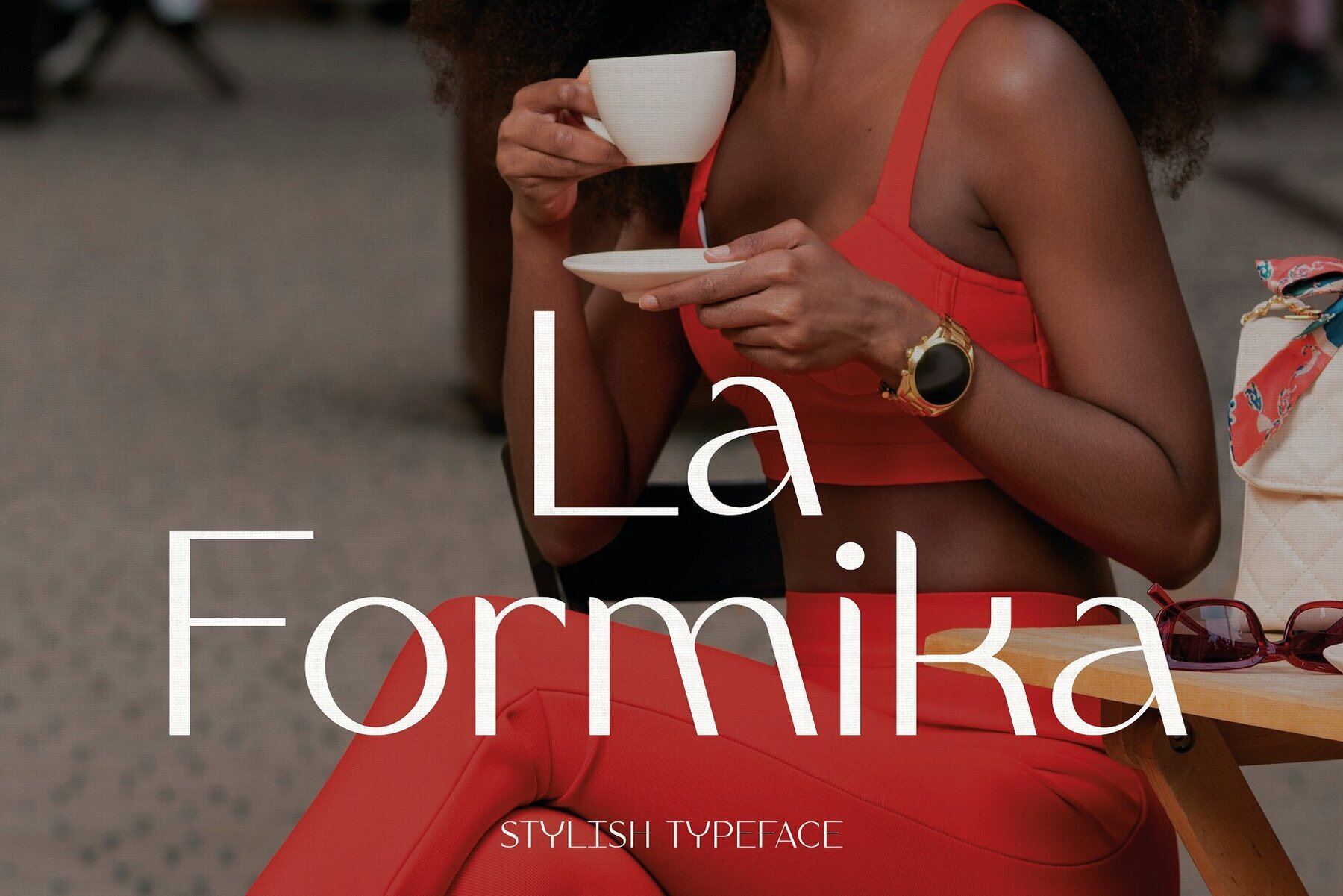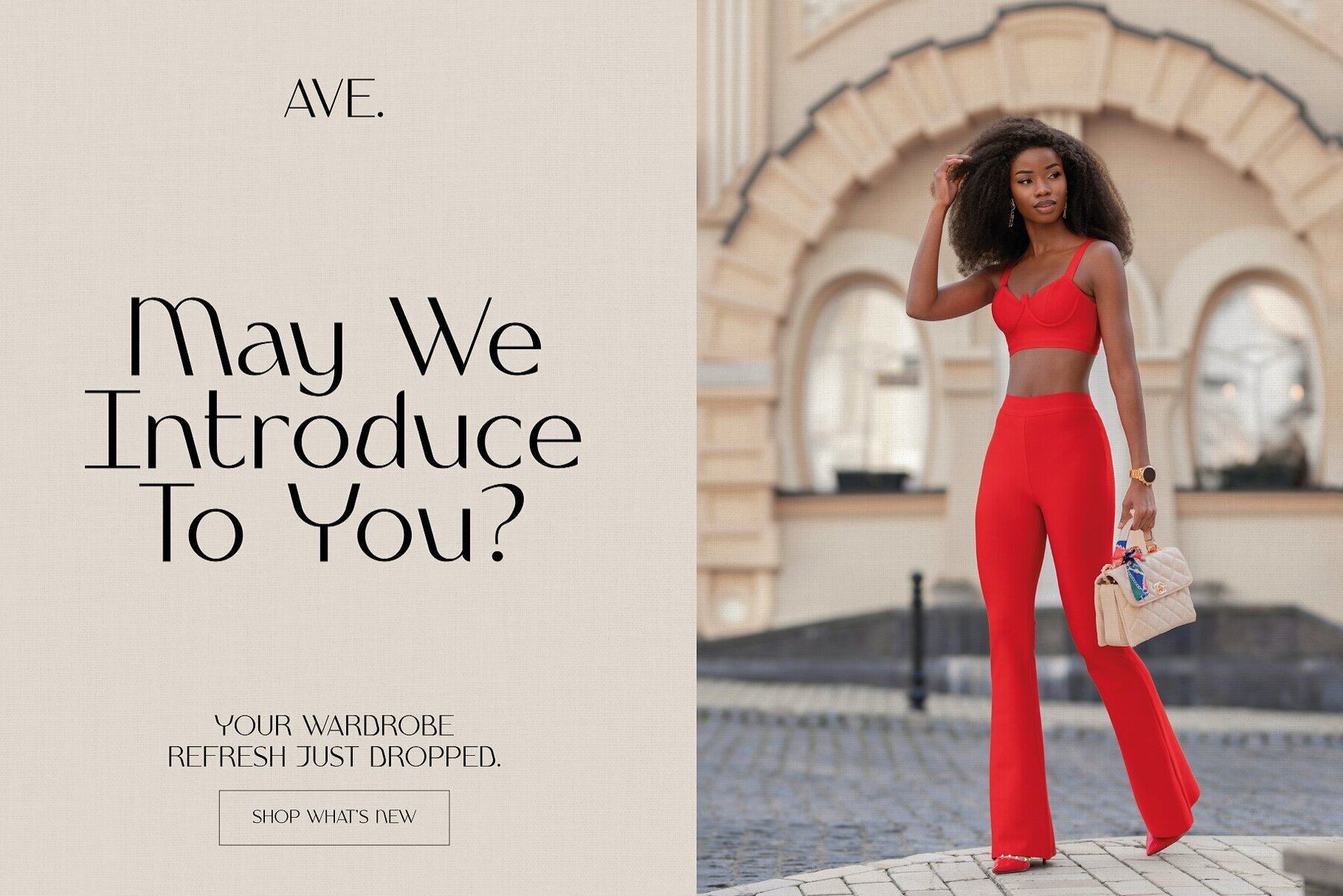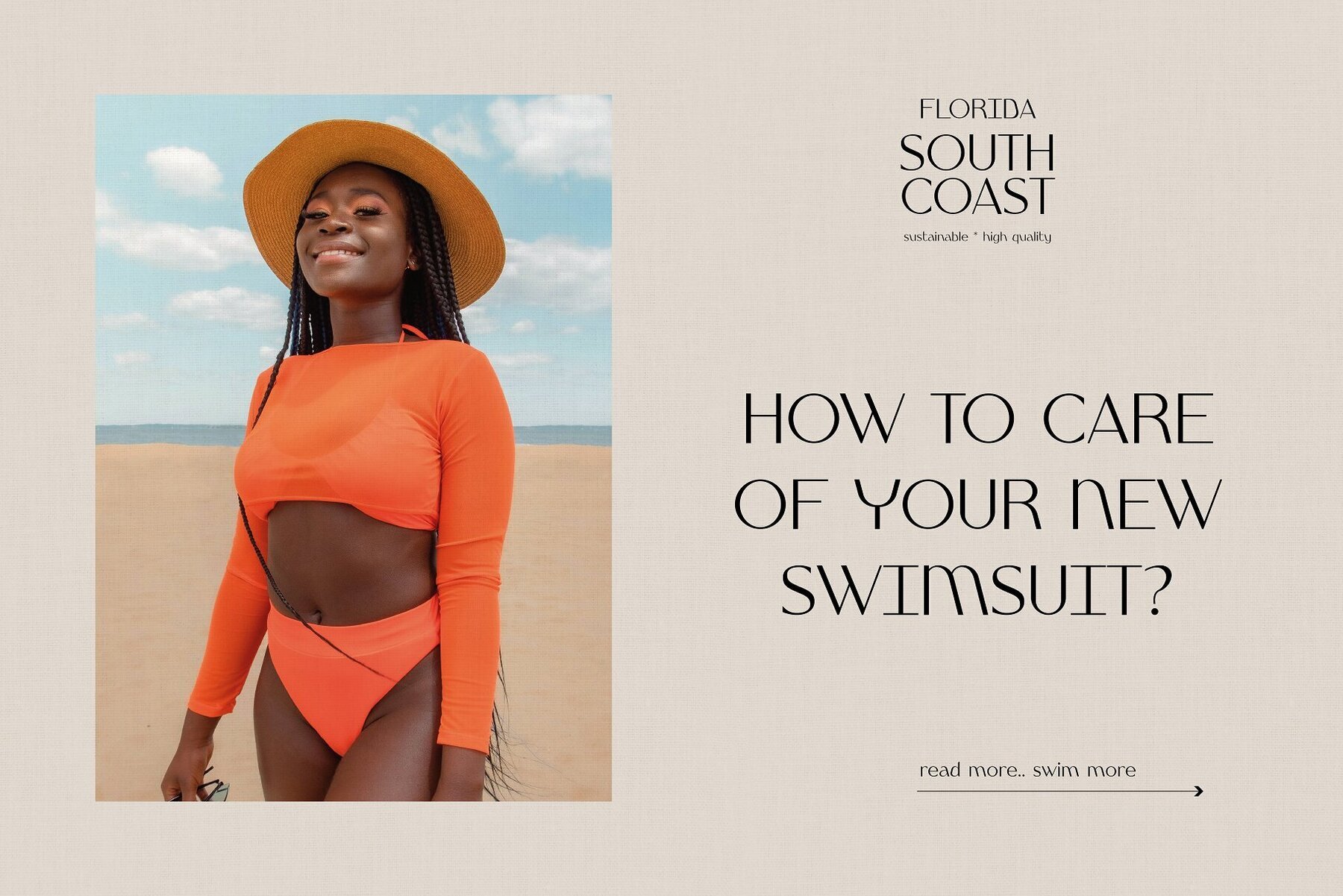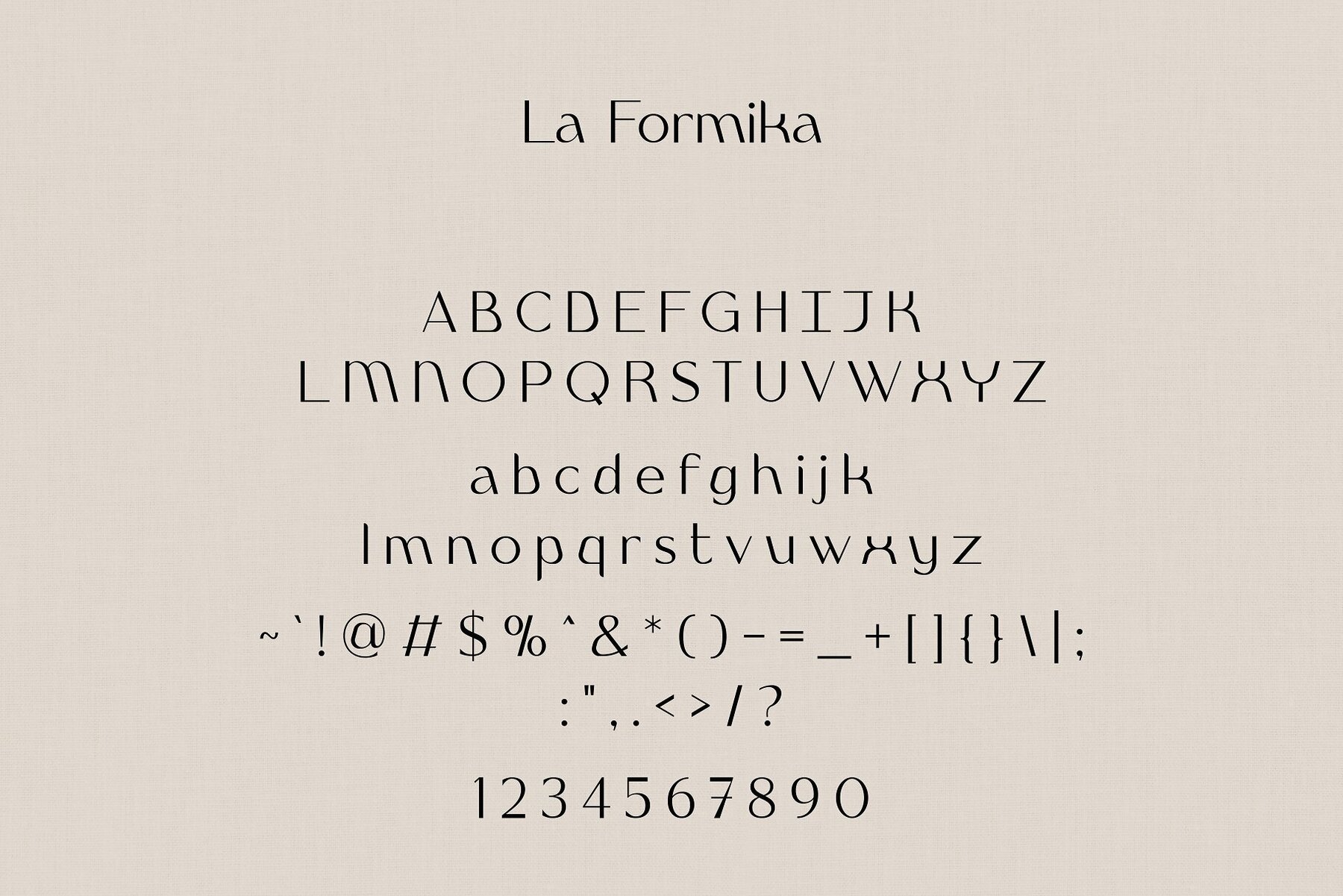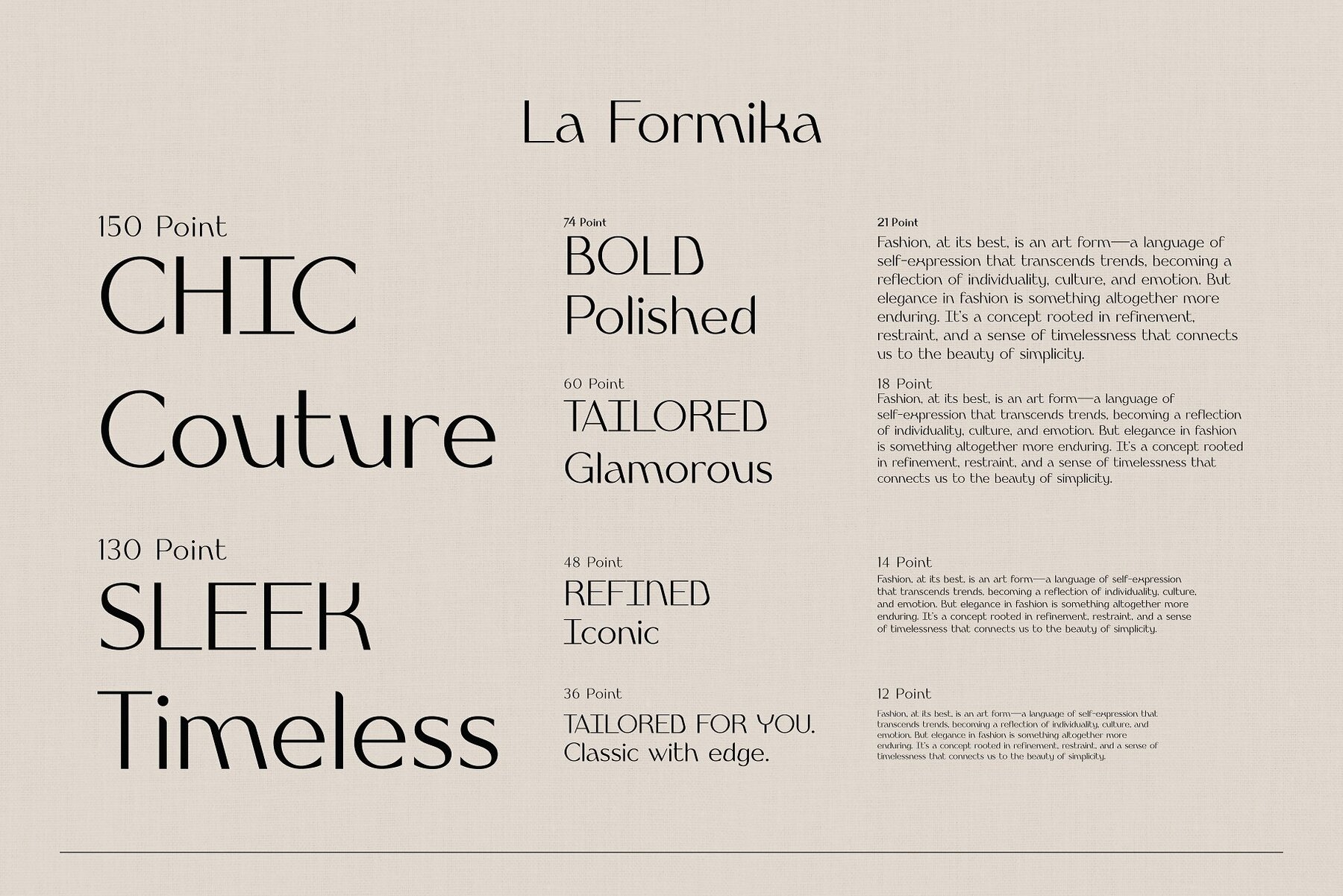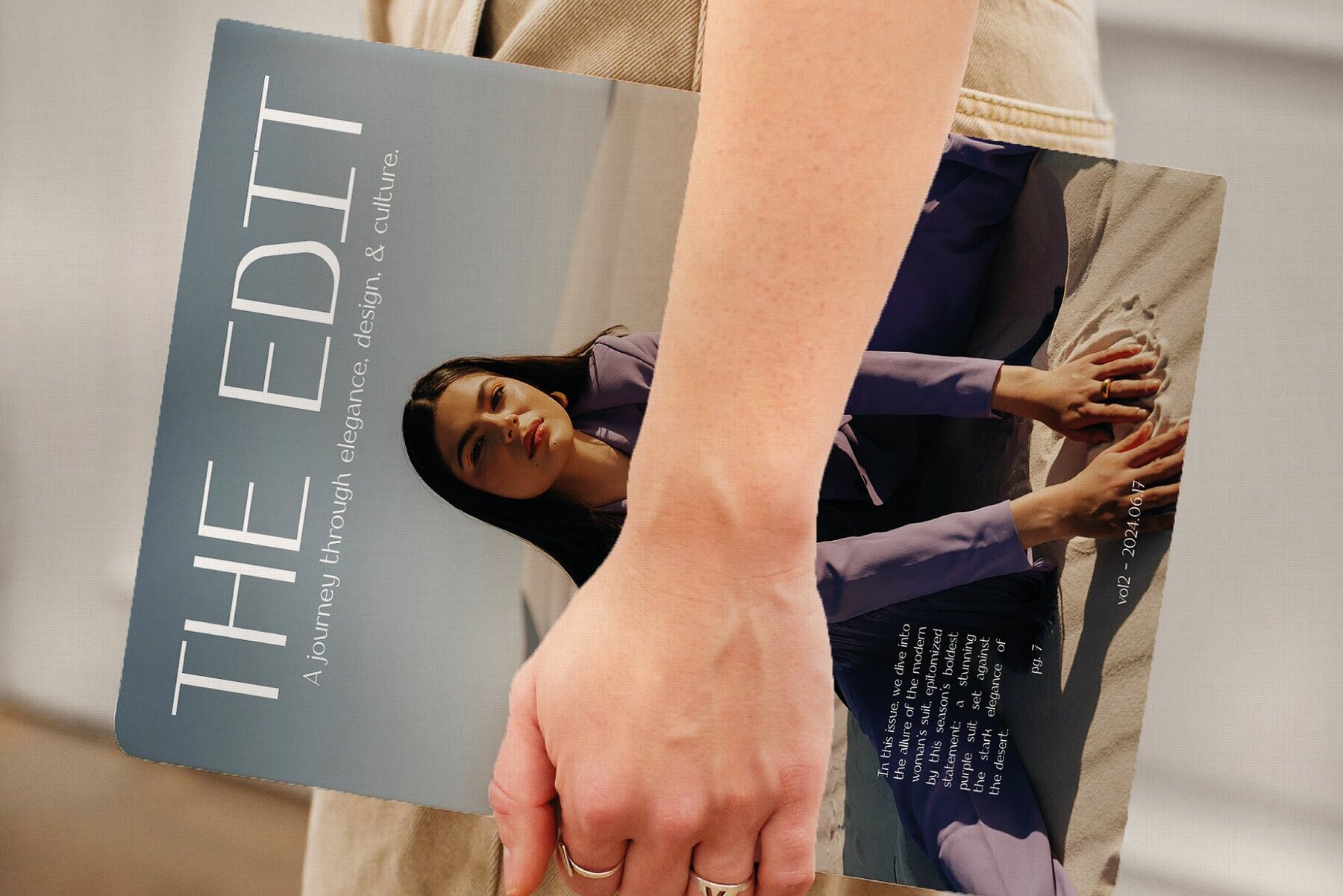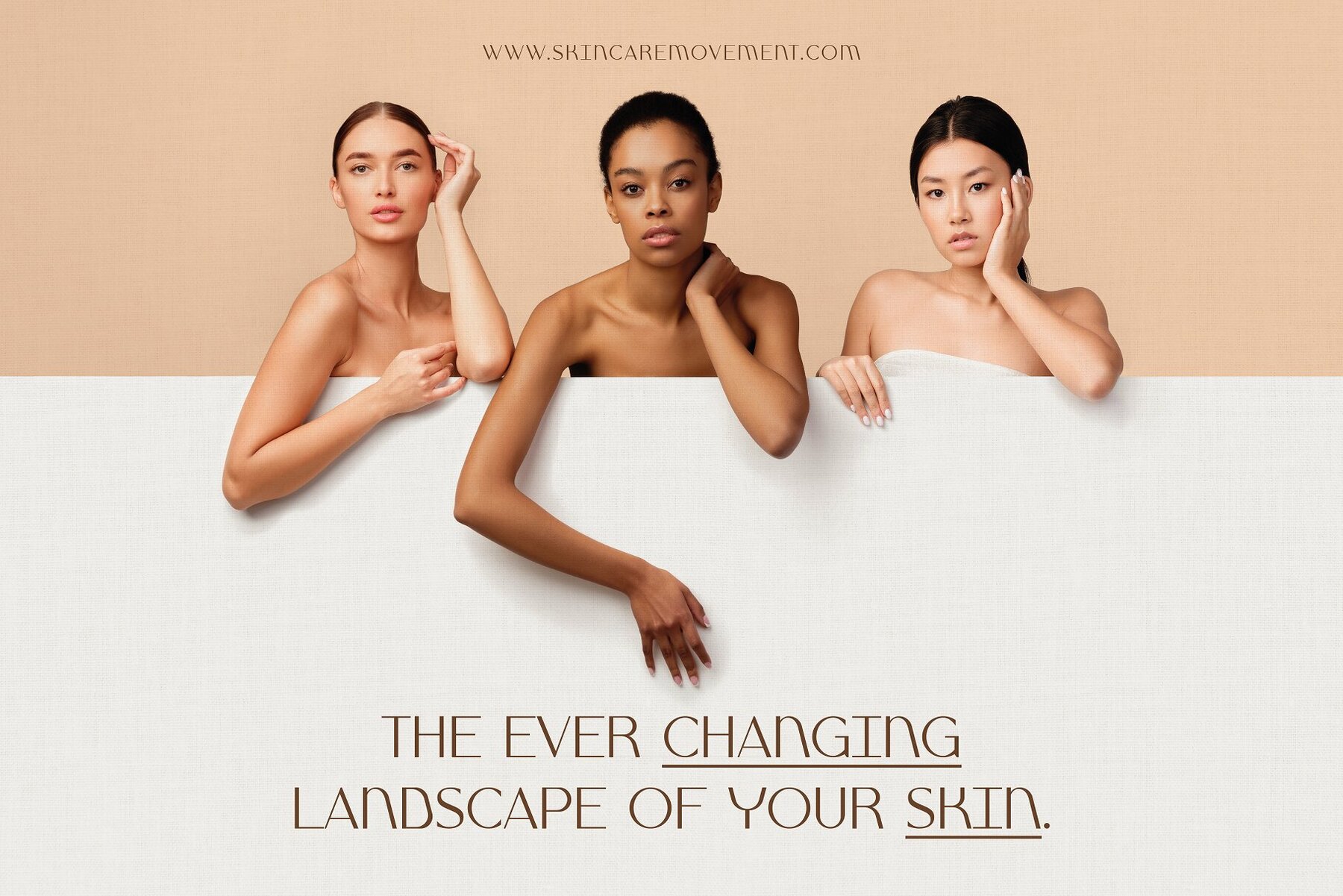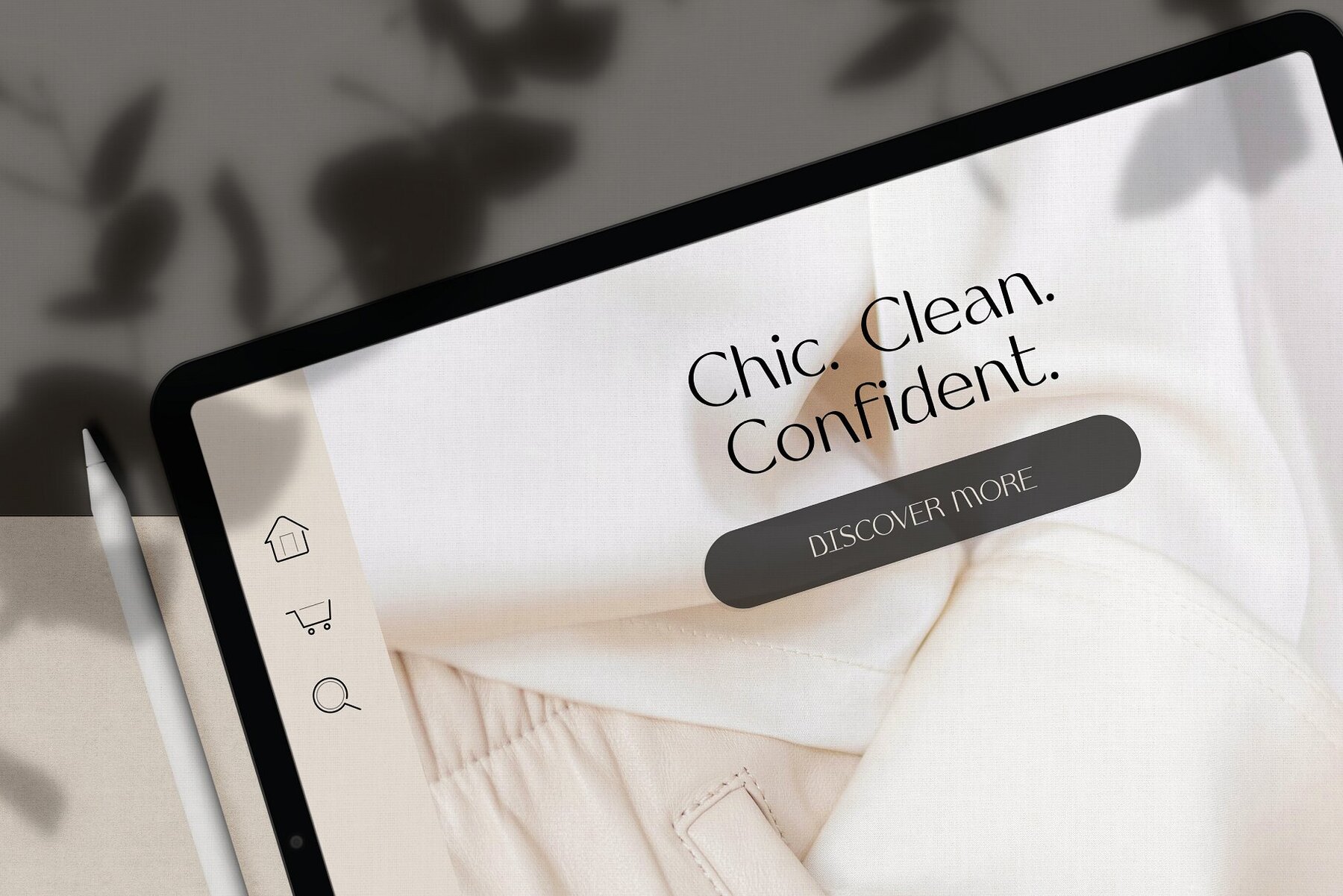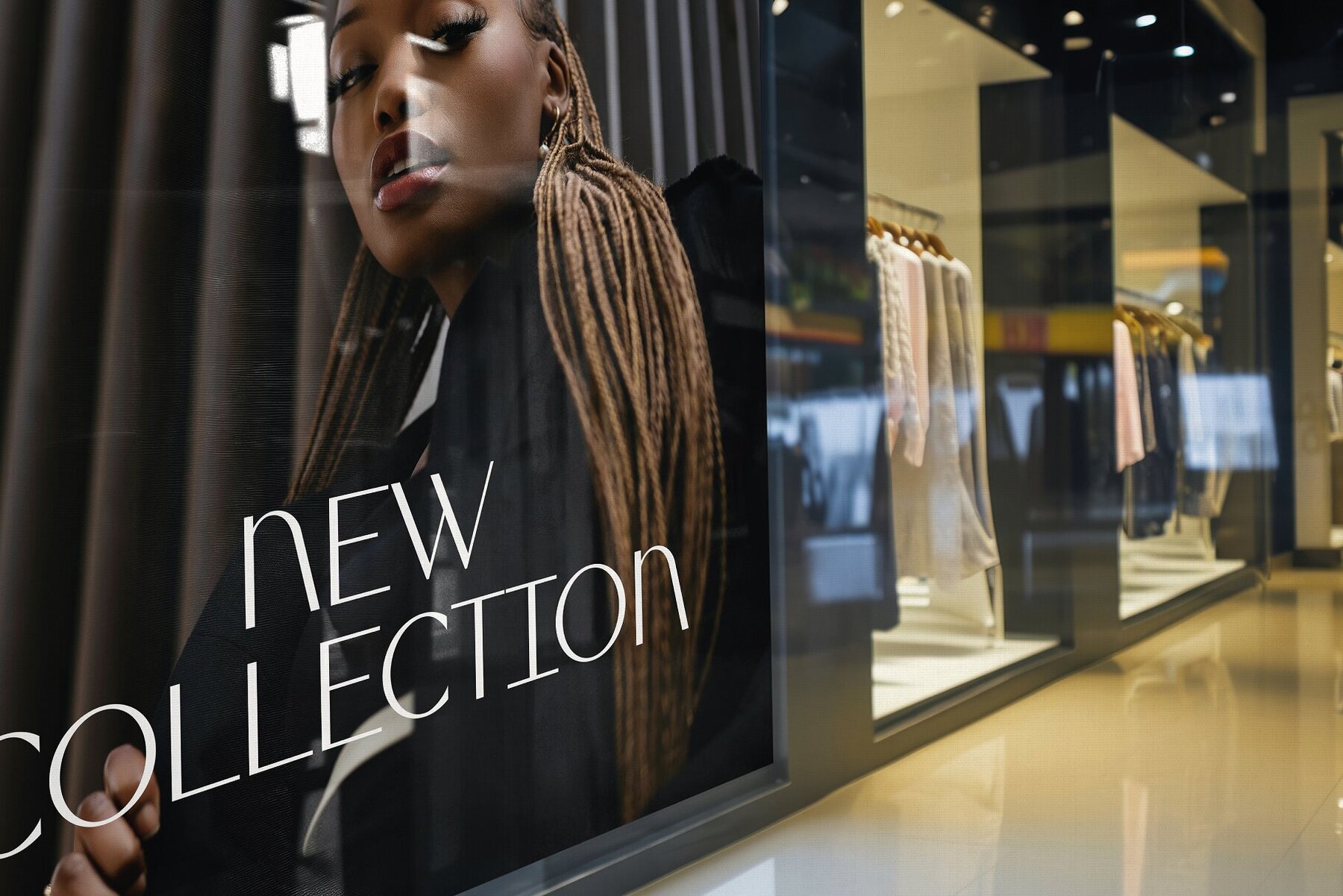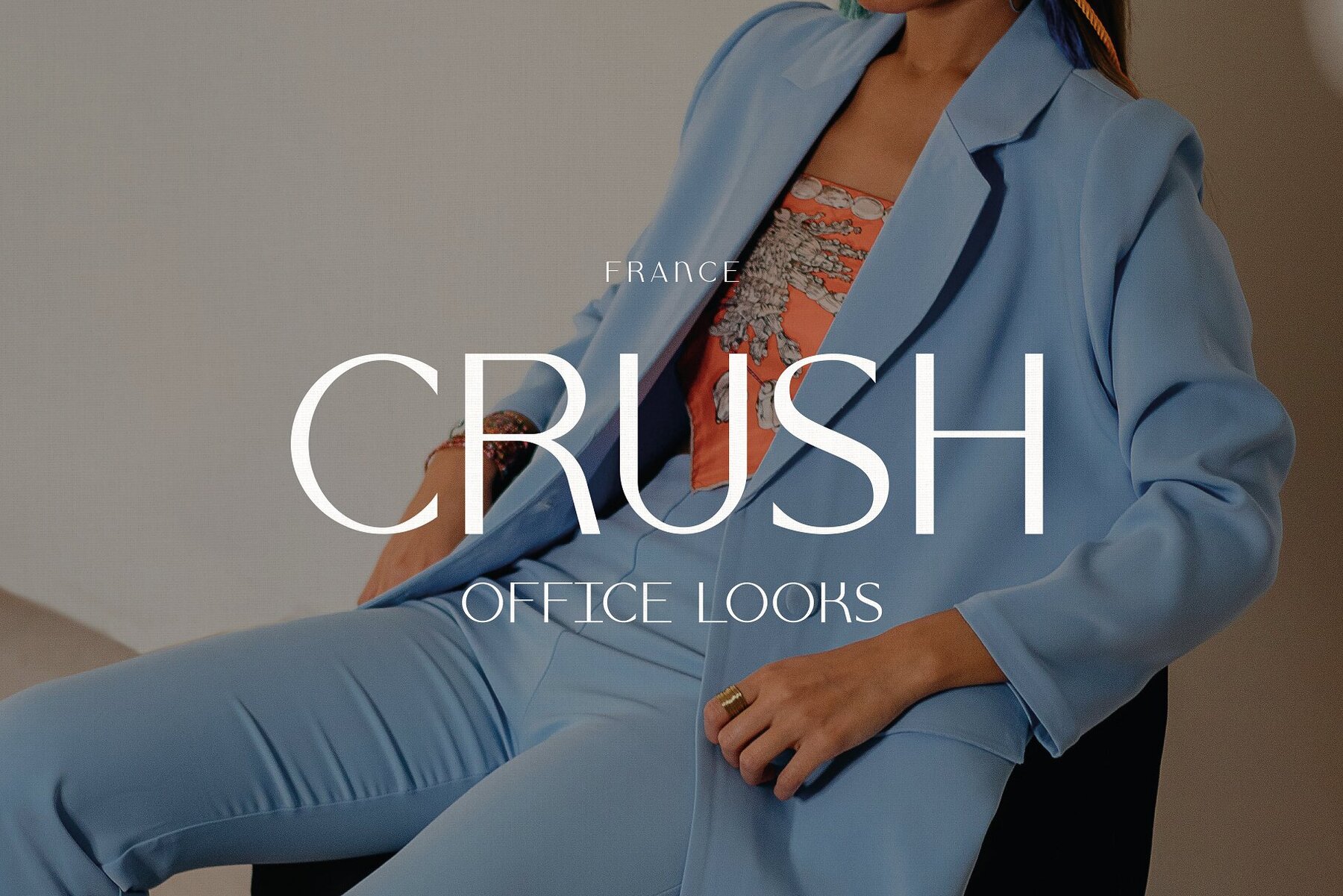
La Formika Font
La Formika
Introducing La Formika – the epitome of elegance and sophistication in a typeface. Designed for graphic designers who work with high-end brands, La Formika exudes luxury, making it the perfect choice for fashion, beauty, cosmetics, and premium projects. With its refined lines, graceful curves, and polished style, this typeface elevates any design, infusing it with a sense of class and exclusivity. From magazine covers and product packaging to editorial spreads and upscale branding, La Formika delivers an aura of timeless beauty that captures attention. It’s the ultimate tool to create visually stunning logos, impactful headlines, and alluring layouts. Set the standard for luxury design with La Formika – where elegance meets modernity, and every detail makes a statement.